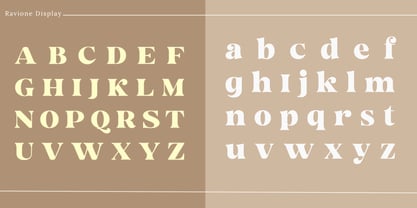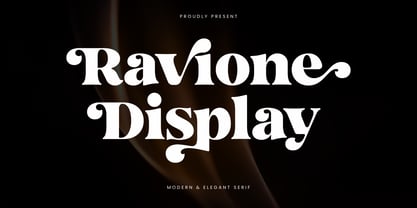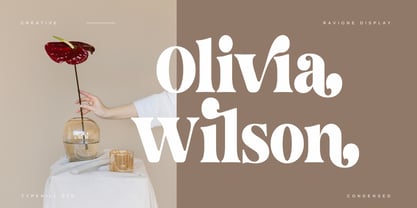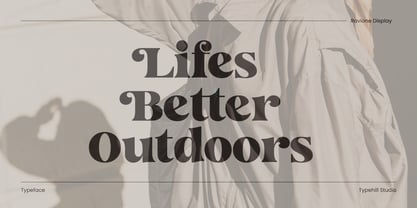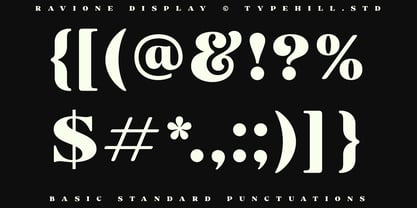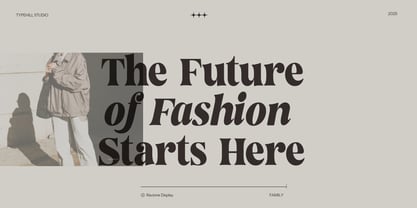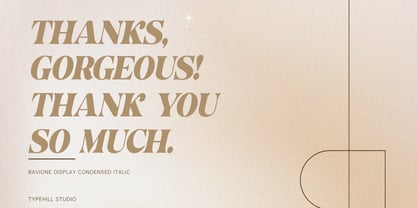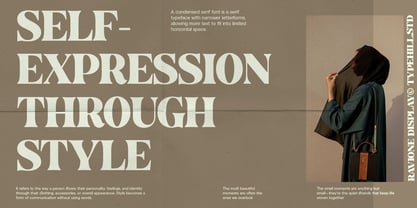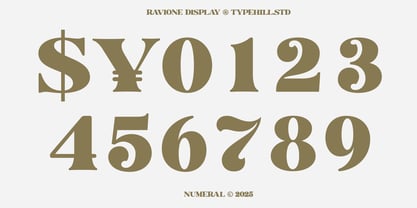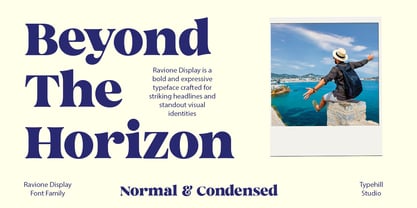
Ravione Display
von Typehill Studio
Die Schriftfamilie Ravione Display wurde von Teuku Fahruddin entworfen und von Typehill Studio veröffentlicht. Ravione Display enthält 4 Stile und Familienpaketoptionen. Mehr über diese Familie
Ravione Display is a modern serif display typeface family designed to deliver an elegant, bold, and captivating character in every title. Combining strong serif forms with smooth, refined curves, Ravione Display brings a premium impression without losing its artistic touch. This type family comes in 4 styles: Regular Italic Condensed Italic These four styles offer high flexibility for branding, editorial layouts, packaging, posters, and luxury design projects that demand strong typographic personality. The condensed variants enhance dramatic presence and space efficiency, while the italic styles add a more expressive, dynamic feel. Perfect for: Headlines & titles Logos & branding Magazines & editorial design Posters, covers, and other display layouts Luxury design, fashion, and modern–classic aesthetics Ravione Display stands as a refined and versatile choice—ideal for designers seeking a more sophisticated and character-rich visual expression.
Designer: Teuku Fahruddin
Foundry: Typehill Studio